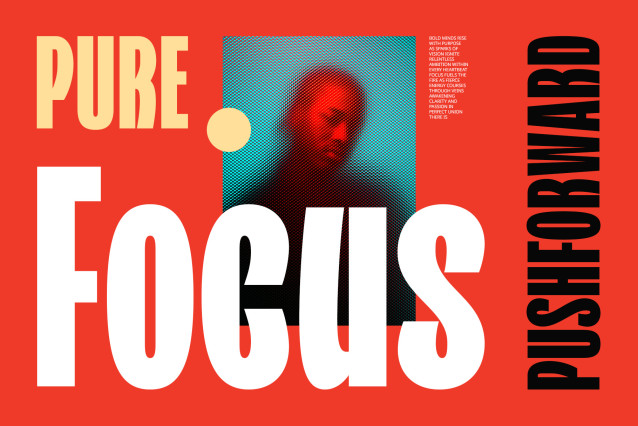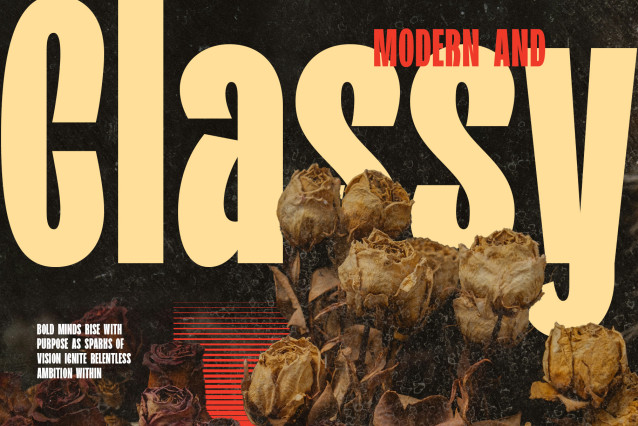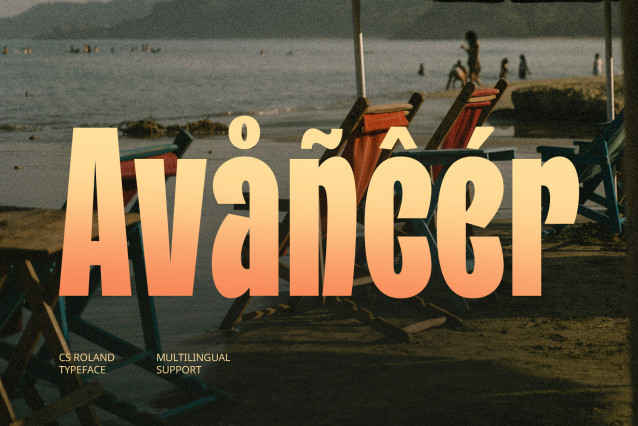
CS Roland Font
CS Roland – Bold Sans Serif Font
Roland is a modern sans-serif font with a bold and clean contemporary form, designed to deliver clarity, structure, and visual strength. With its well-defined shapes and minimalist aesthetic, this typeface radiates professionalism and confidence—making it highly adaptable for a wide range of modern design contexts.